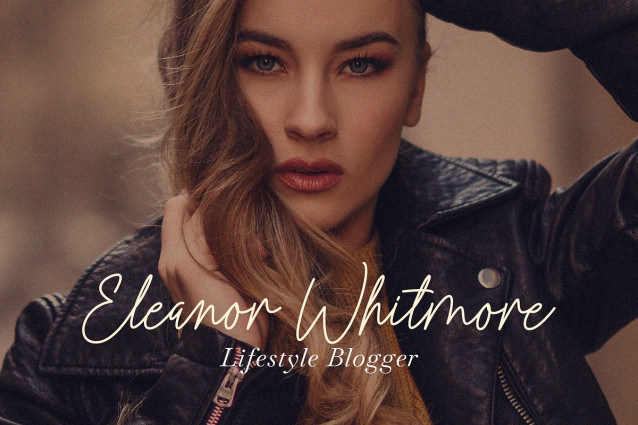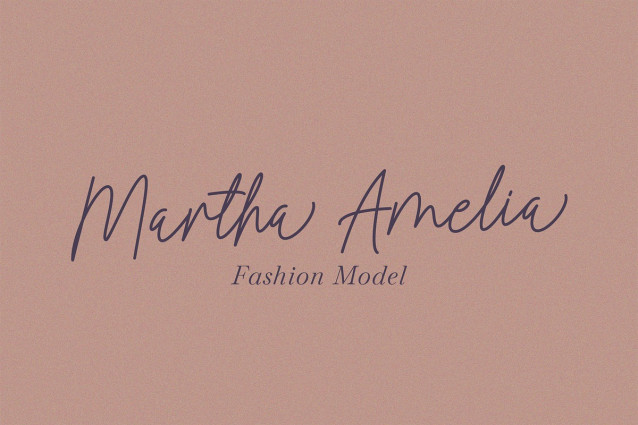
Allistion Handwritten Font
Allistion Handwritten Font is a beautifully crafted handwritten script font that exudes elegance and modernity. With its smooth, flowing strokes and well-balanced letterforms, this font strikes the perfect balance between classic charm and contemporary style.
Designed to bring a sophisticated touch to any project, Allistion is ideal for branding, logos, wedding invitations, packaging, social media, editorials, and other creative designs.